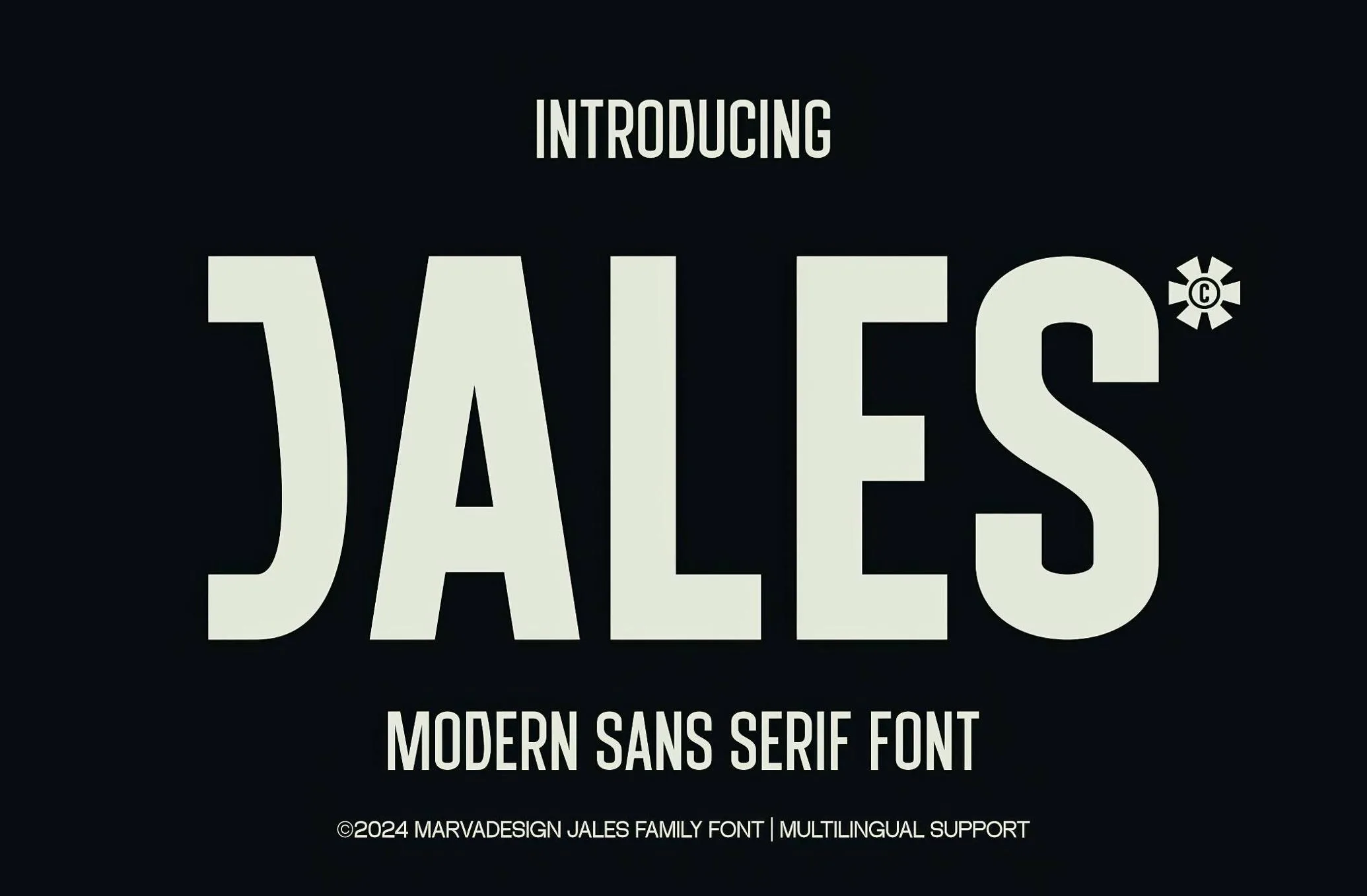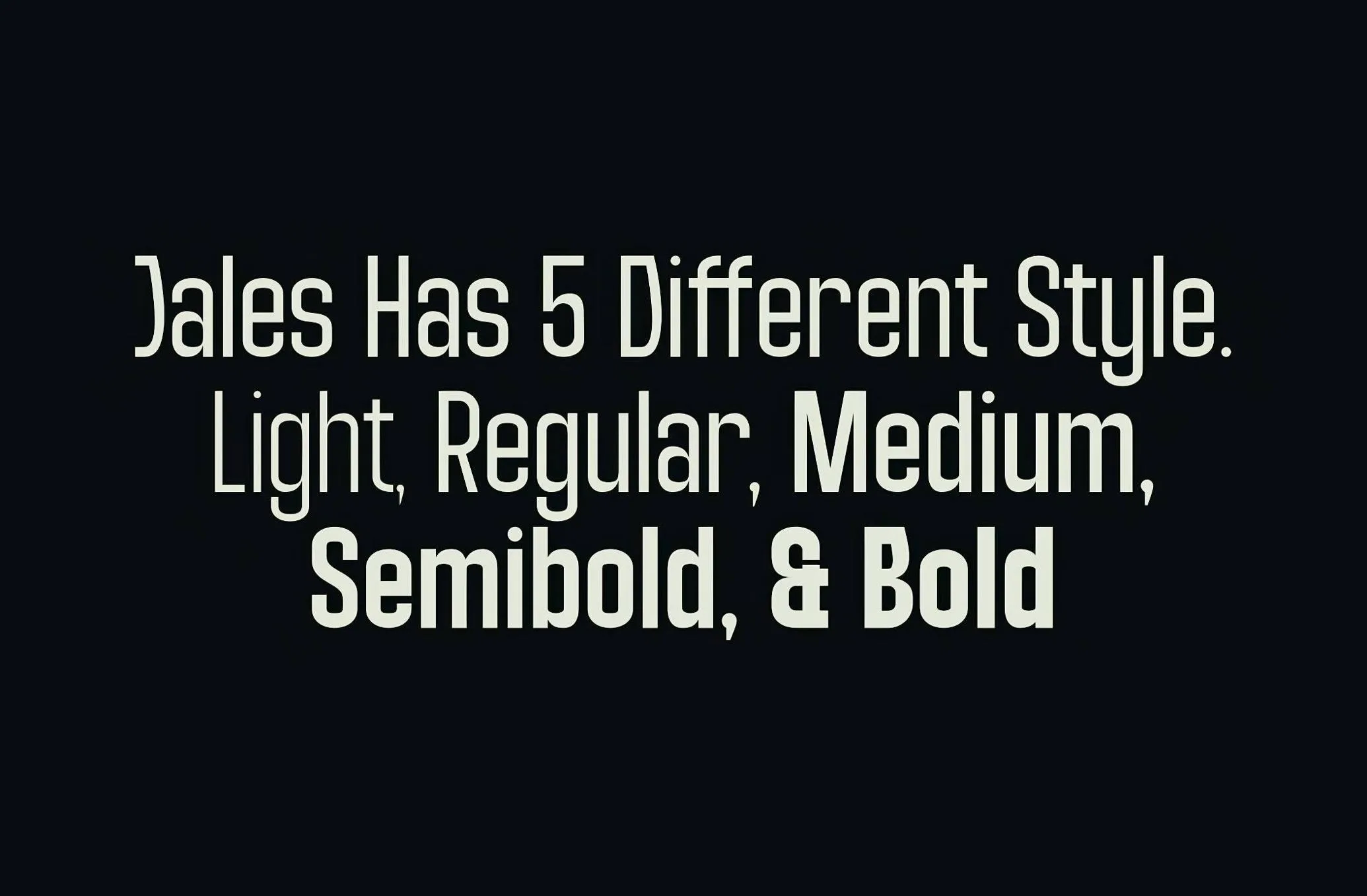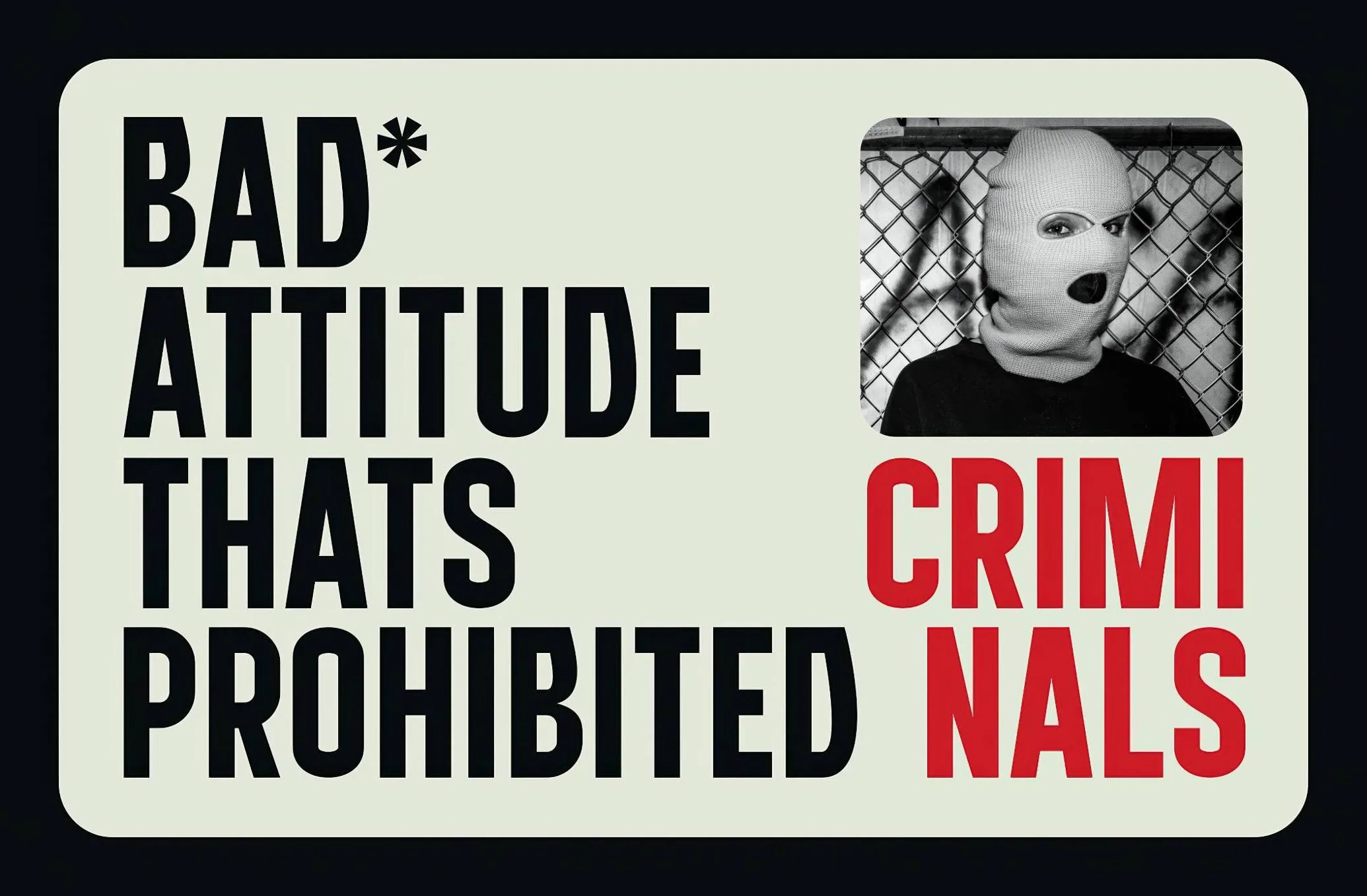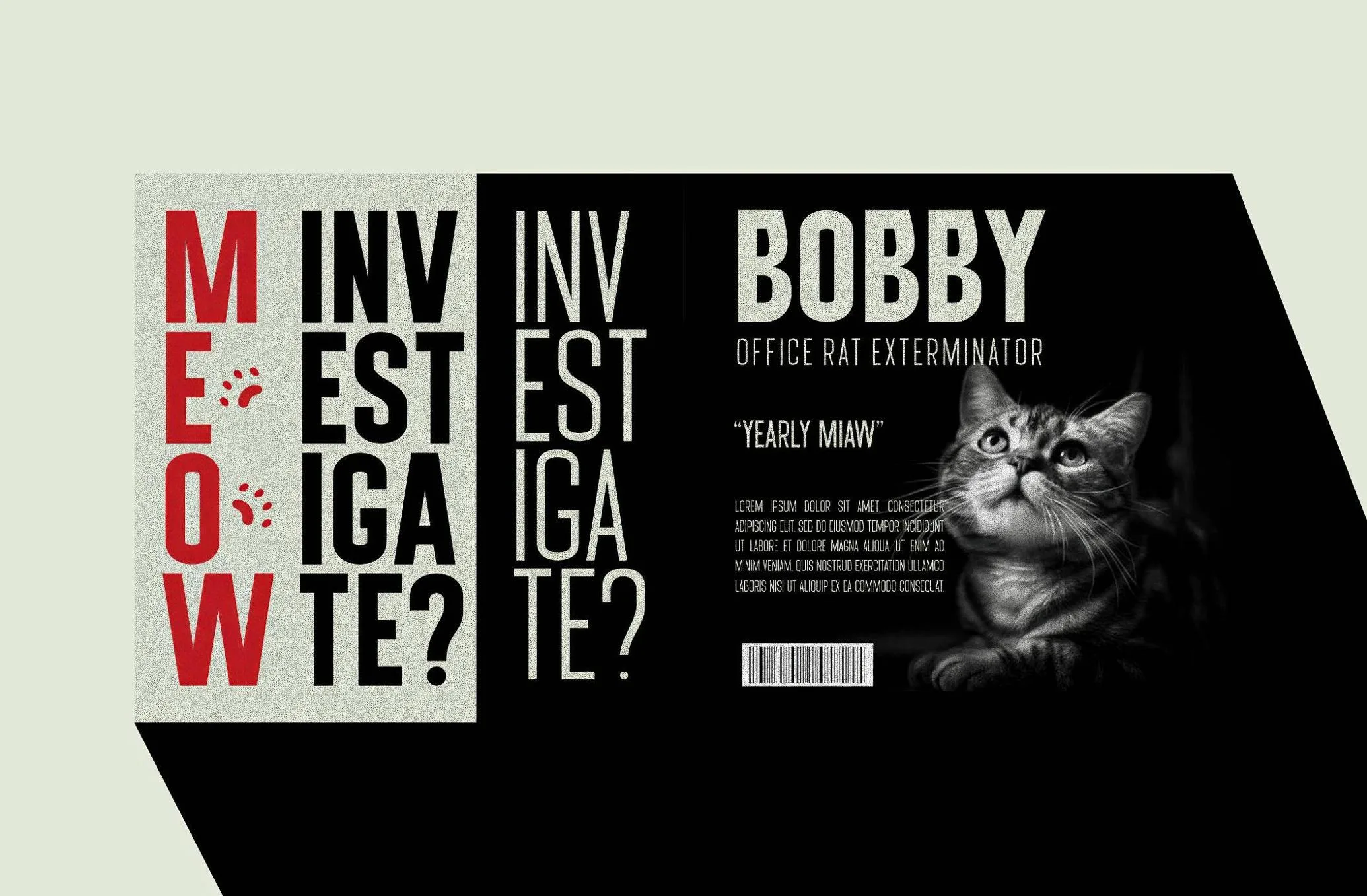
Introducing JALES – a modern sans serif font designed for graphic designers who crave clean, contemporary typography without sacrificing personality. This versatile font family offers 10 finely-tuned weights, ranging from whisper-light to bold and impactful. Built with tight tracking, tall proportions, and crisp letterforms, JALES is made for precision-driven projects that demand attention.
Whether you’re designing a luxury brand identity, a sleek mobile app UI, or editorial content, JALES is your go-to solution. The clean geometry and condensed structure of this sans serif typeface allow for tight line spacing and powerful readability, especially in digital layouts or print-heavy projects.
Modern Logos & Brand Identities – Its sleek, condensed shape gives logos a high-end, minimal look.
Posters & Editorial Design – Ideal for titles, taglines, and cover layouts that need to pop.
Web & App Design – Optimized for readability at small sizes and pixel clarity on screens.
Fashion & Tech Branding – JALES captures both sophistication and innovation.
Packaging & Labels – Bold yet refined, it elevates your product presentation.
Each character in JALES has been meticulously crafted, giving your designs a uniform yet stylish rhythm. The balanced spacing and dynamic contrast between weights make it easy to mix and match for visual hierarchy, making it perfect for both display and body text.
Whether you’re a brand strategist, UI designer, typographer, or content creator, JALES Modern Sans Serif Font will help you create layouts that speak clarity, confidence, and creativity. It’s more than a font—it’s a design tool tailored for modern storytelling.